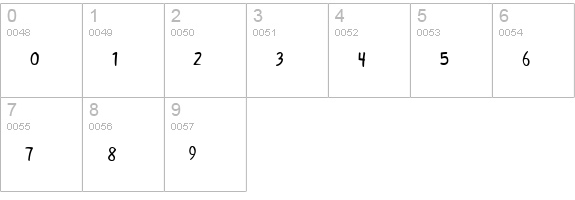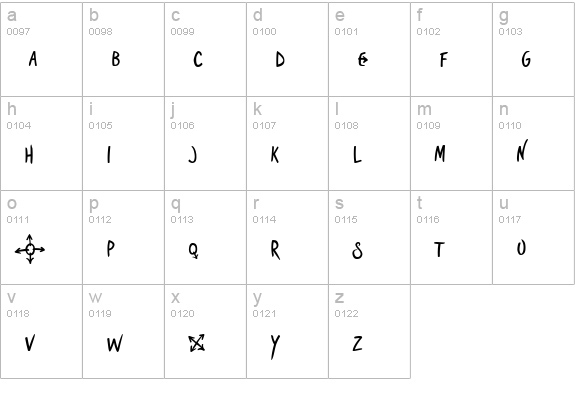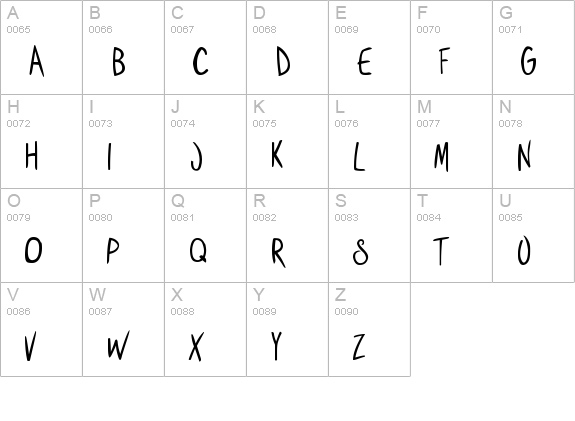
Shoestore Font Details
Introducing Shoestore Font, a stunning and versatile typeface that will take your design projects to new heights. This font is the perfect blend of modernity and elegance, making it ideal for a wide range of applications. With its clean lines and contemporary aesthetic, Shoestore Font adds a touch of sophistication to any design. Whether you're creating logos, branding materials, or advertising campaigns, this font will effortlessly elevate your visuals and leave a lasting impression. But what sets Shoestore Font apart from the rest is its incredible affordability – it's free! That's right, this exceptional font is freely available to download at FontsMarket.com. This means that you can enjoy the beauty and versatility of Shoestore Font without breaking the bank. In addition to its affordability, Shoestore Font also offers a wide range of stylistic alternates and ligatures, allowing you to customize your designs and create unique typographic compositions. Its extensive character set includes uppercase and lowercase letters, numbers, punctuation marks, and multilingual support, ensuring that you have everything you need to bring your creative visions to life. Whether you're a professional designer or a hobbyist, Shoestore Font is a must-have addition to your font collection. Its timeless appeal and exquisite details make it suitable for a variety of projects, from fashion and beauty to luxury branding and editorial design. So don't miss out on this incredible opportunity to enhance your designs with Shoestore Font. Head over to FontsMarket.com today and download this font for free. Embrace the power of Shoestore Font and unlock a world of endless design possibilities.